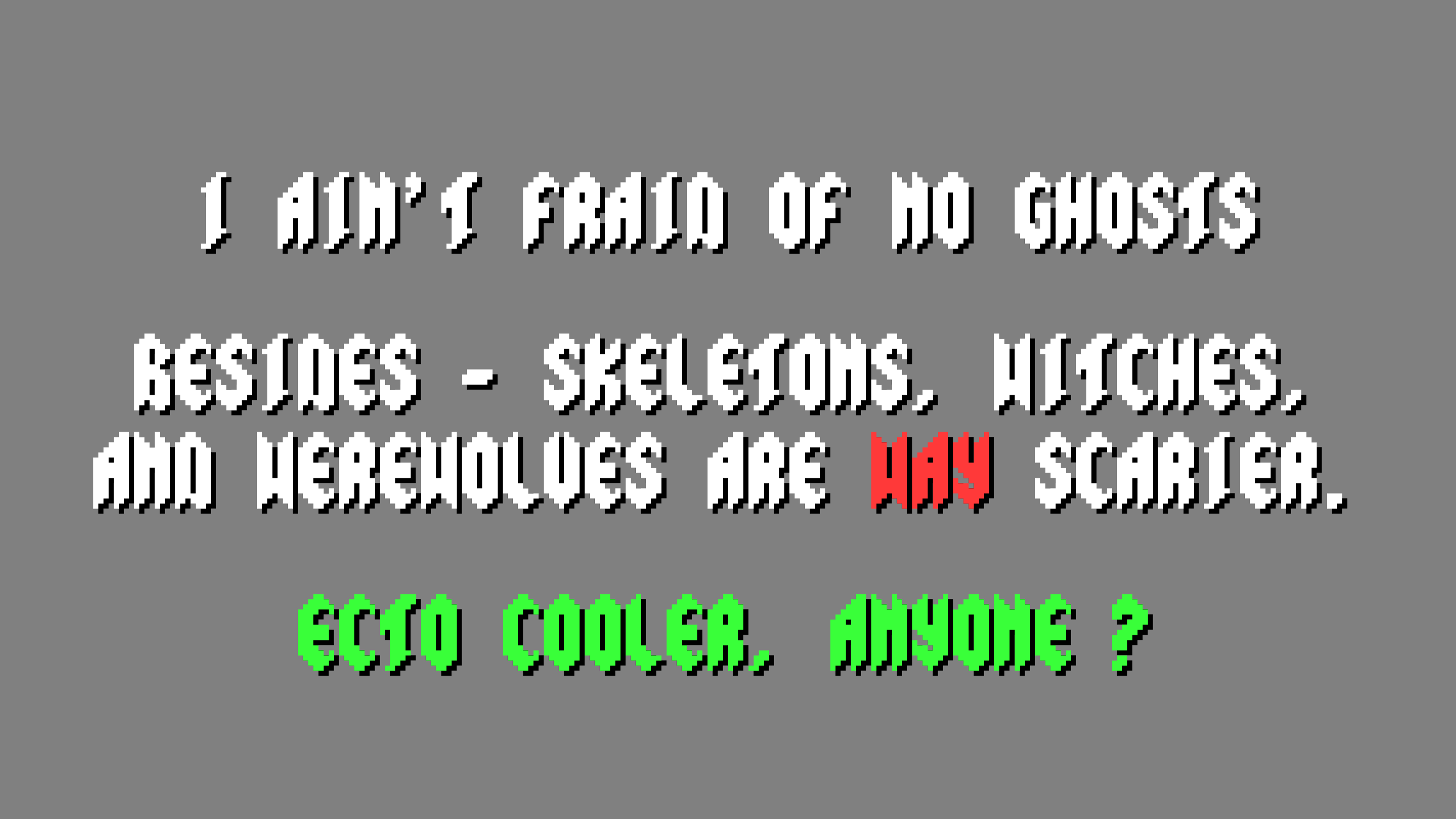
They're here to save the world!Included here is the font from the game Ghostbusters II, particularly the ports like the Commodore 64 and ZX Spectrum. This font has a really unique look! (The Amiga port uses this font too, but with some additional embellishment shading thanks to its enhanced 16-bit graphics.)
Full disclosure: It's possible that there are other characters embedded in the game somewhere that I wasn't able to locate.